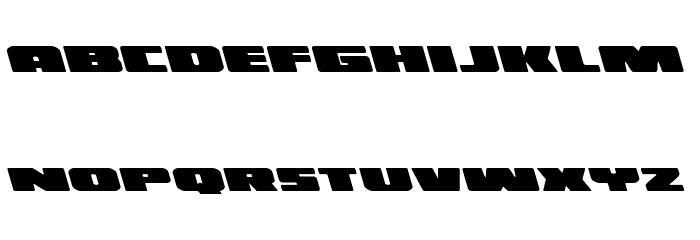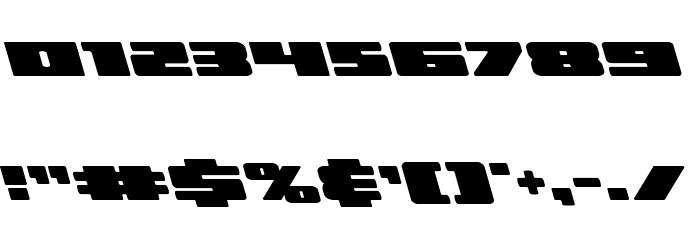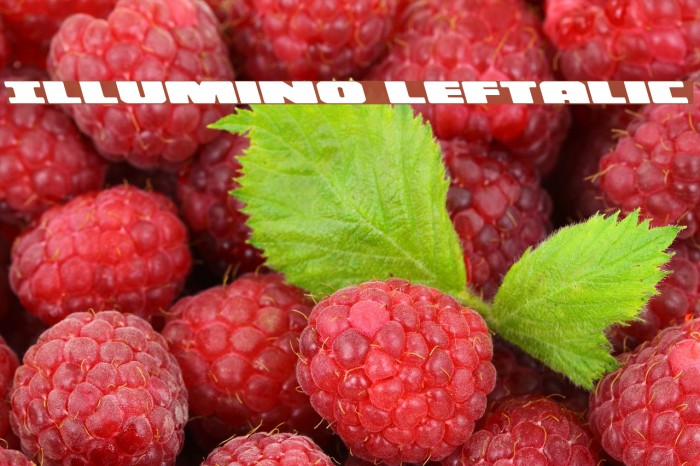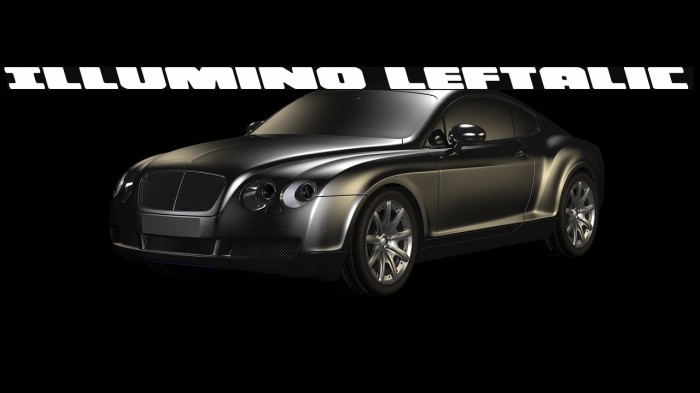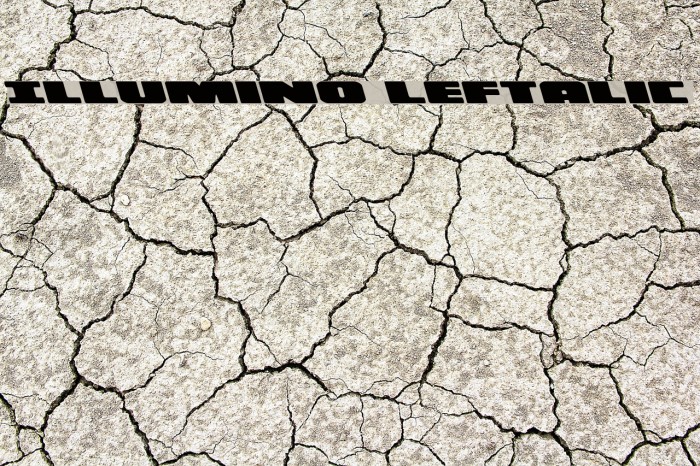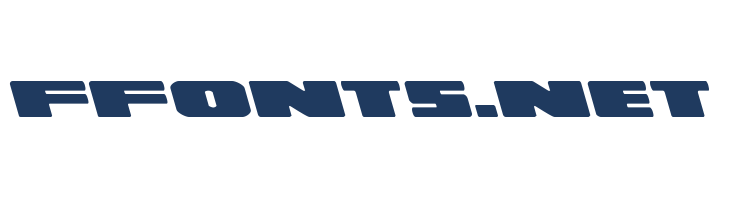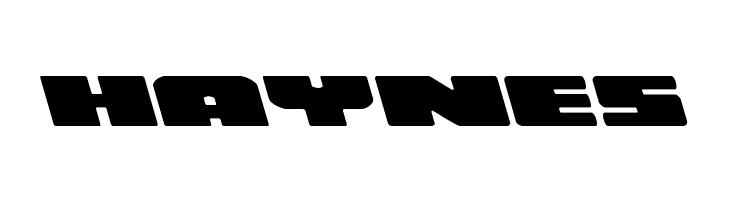
Illumino Leftalic Font
This font features a bold and dynamic style with a distinct slant to the left, giving it a unique italicized appearance. The characters are heavily weighted, providing a strong visual impact. Each letter is constructed with sharp, angular edges and a blocky structure, contributing to its modern and futuristic aesthetic. The numbers and special characters maintain the same boldness and angularity, ensuring consistency across all glyphs. This font's design is ideal for making statements and capturing attention.
A bold, left-leaning italic font with a modern, angular design.
- Proposed Projects: Ideal for futuristic branding, technology-themed posters, video game titles, and dynamic logo designs.